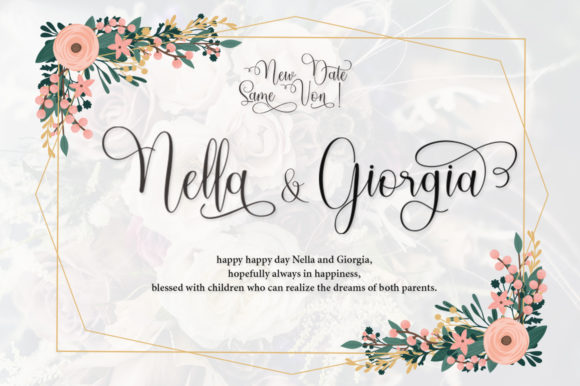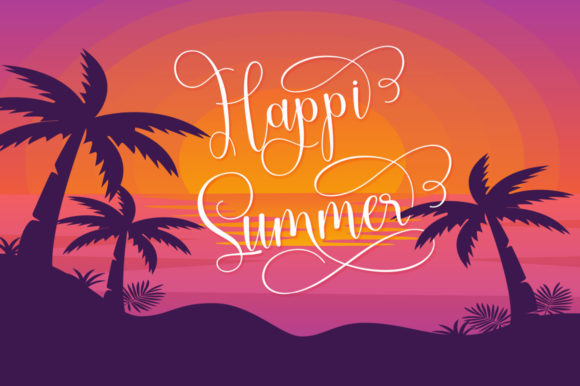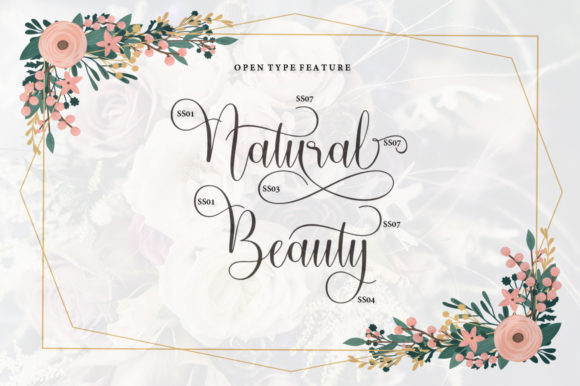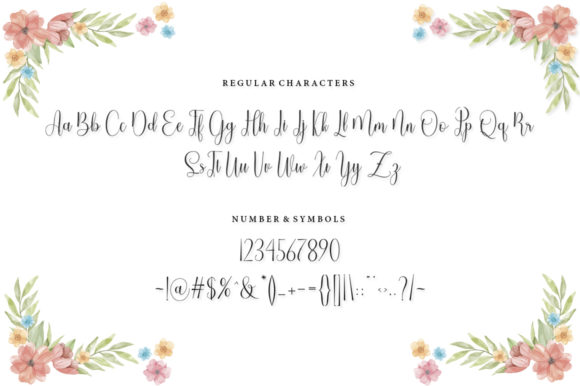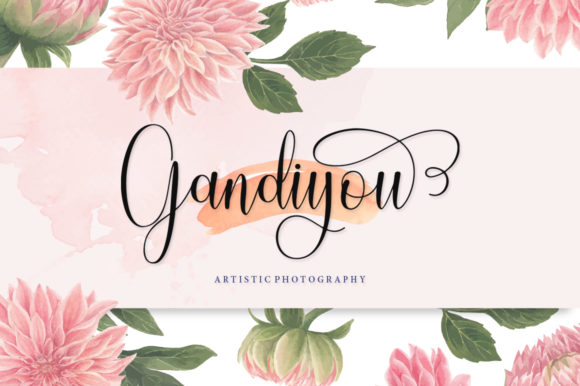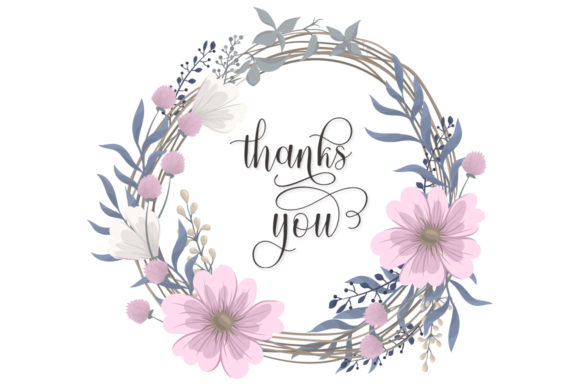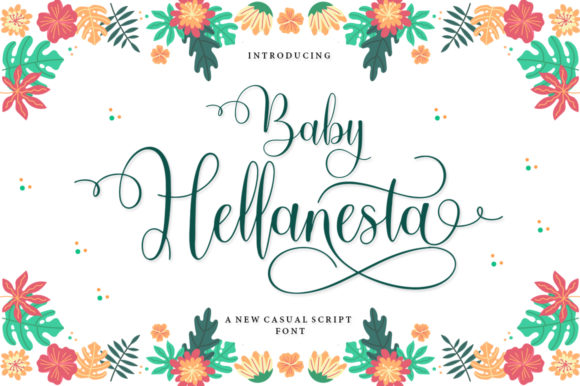
Baby Hellanesta Font: Elevate Your Designs with Elegance and Sophistication
In the world of typography, a beautiful font can make all the difference in elevating your designs to new heights. If you’re a designer, crafter, or simply someone who appreciates the art of beautiful writing, then you’re in for a treat. Introducing Baby Hellanesta, an elegant and flowing handwritten font that’s sure to capture your heart. In this article, we’ll dive into the features and benefits of Baby Hellanesta, and explore how it can bring a touch of sophistication and class to your projects.
What is Baby Hellanesta?
Baby Hellanesta is a stunning handwritten font that’s been crafted with love and care to bring a sense of elegance and refinement to your designs. With its flowing lines, beautiful glyphs, and gorgeous swashes, this font is perfect for anyone looking to add a touch of sophistication to their work. Whether you’re designing a logo, creating a brand identity, or simply looking for a beautiful font to use in your craft projects, Baby Hellanesta is the perfect choice.
One of the standout features of Baby Hellanesta is that it’s PUA (Private Use Area) encoded. This means that you can access all of the glyphs and swashes with ease, giving you complete creative control over your designs. With PUA encoding, you can use the font in any design software that supports it, and easily access the additional characters and swashes that make Baby Hellanesta so special.
Elegant and Classy Design
Baby Hellanesta features a varying baseline, smooth lines, and stunning alternates that give it a truly unique and elegant feel. The font maintains its classy calligraphic influences while still feeling contemporary and fresh, making it perfect for a wide range of design applications. Whether you’re looking to create a luxurious brand identity, design a beautiful wedding invitation, or simply add a touch of elegance to your craft projects, Baby Hellanesta is the perfect choice.
Baby Hellanesta is a versatile font that’s perfect for designers and crafters alike. With its elegant and flowing design, it’s ideal for a wide range of projects, including:
• Logo design and brand identity
• Craft projects, such as scrapbooking and card making
• Digital design, such as social media graphics and blog headers
• Print design, such as brochures and flyers
Why Choose Baby Hellanesta?
So why choose Baby Hellanesta over other fonts? Here are just a few reasons why this font stands out:
• Unique and elegant design that’s sure to capture attention
• PUA encoded for easy access to glyphs and swashes
• Versatile and adaptable for a wide range of design applications
• Classy calligraphic influences with a contemporary feel
• Perfect for designers and crafters alike
In conclusion, Baby Hellanesta is a truly special font that’s sure to elevate your designs to new heights. With its elegant and flowing design, PUA encoding, and versatile adaptability, it’s the perfect choice for designers and crafters looking to add a touch of sophistication and class to their work. So why wait? Fall in love with Baby Hellanesta and bring your projects to the highest levels!